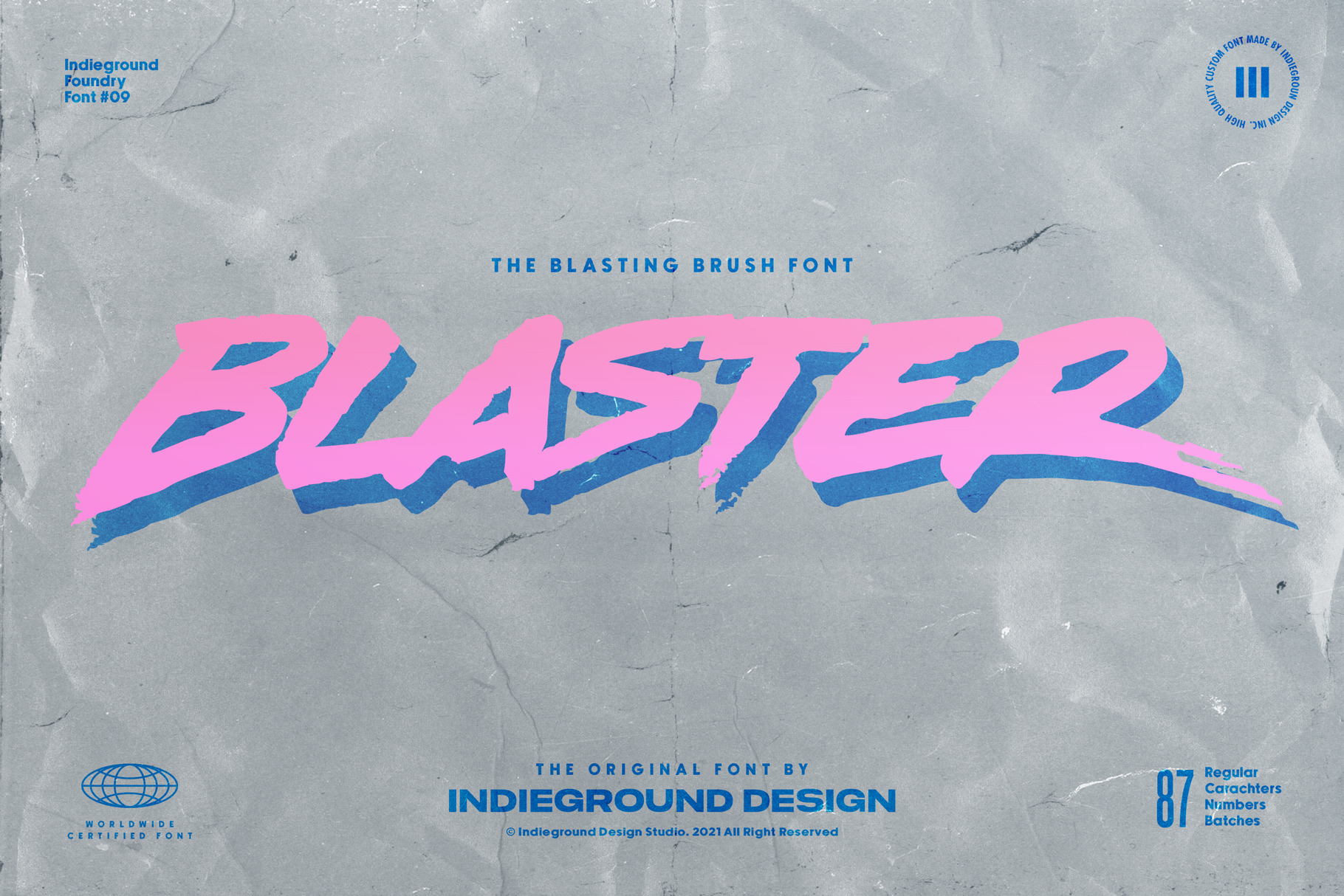
Blaster Font
Blaster Font by Indieground This retro brush font made by the Indieground Team is perfect for titles, logos, packaging, and creative web design headers. Blaster is ideal for your 80s & 90s-inspired projects! You can use it for some Retrowave-styled artworks, a poster reminiscent of the golden era of Horror movies, or even for a nostalgic Baywatch-inspired logo. The regular version is composed of 87 characters in total, you can make the most of it as a display font with its various ligatures! Blaster is a multi-functional font, it will add a touch of dynamism to your layouts and make your logos unique. A hand drawn font with synthwave atmospheres that will give a cool style and weight to all your artistic compositions. This regular commercial version includes the full character set shown in the preview.